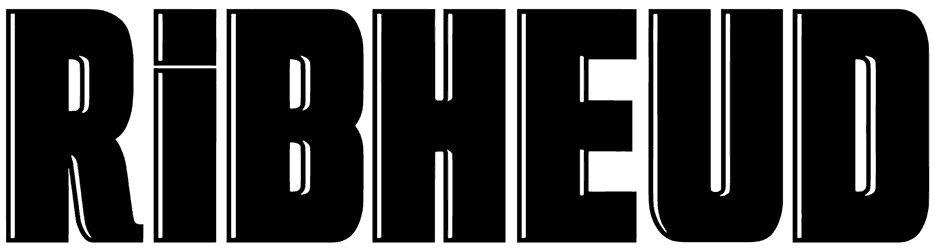
Ribheud Font
Designed byTeguh Pranata
With a retro style like this item, you are able to trim a lot of designs and have a memorable showcase. This tall font with its bold lettering will provide a distinct outward for your words. There is no offer for lowercase letters, but the Ribheud font would be a nice pickup for varied projects, namely, websites, packaging, posters, covers, and so forth.